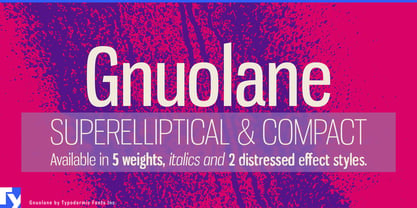
Gnuolane
by Typodermic
About Gnuolane Font Family
Introducing Gnuolane—the bold and compact display typeface that speaks volumes with its unique personality. Drawing inspiration from early twentieth-century grotesques and the no-nonsense characteristics of the 1960s, Gnuolane packs a punch with its distinctive and eye-catching design.
The power of Gnuolane lies in its ability to convey your message with style and flair. With five weights and italics to choose from, you can choose the perfect combination to suit your needs. Whether you’re creating bold headlines or impactful titles, Gnuolane has the versatility to make a statement in any design.
For added impact, check out Gnuolane Jump and Gnuolane Stencil. These variations take the unique personality of Gnuolane to the next level, with even more opportunities to create attention-grabbing designs.
Don’t settle for ordinary typography. Choose Gnuolane and let your designs stand out from the crowd.